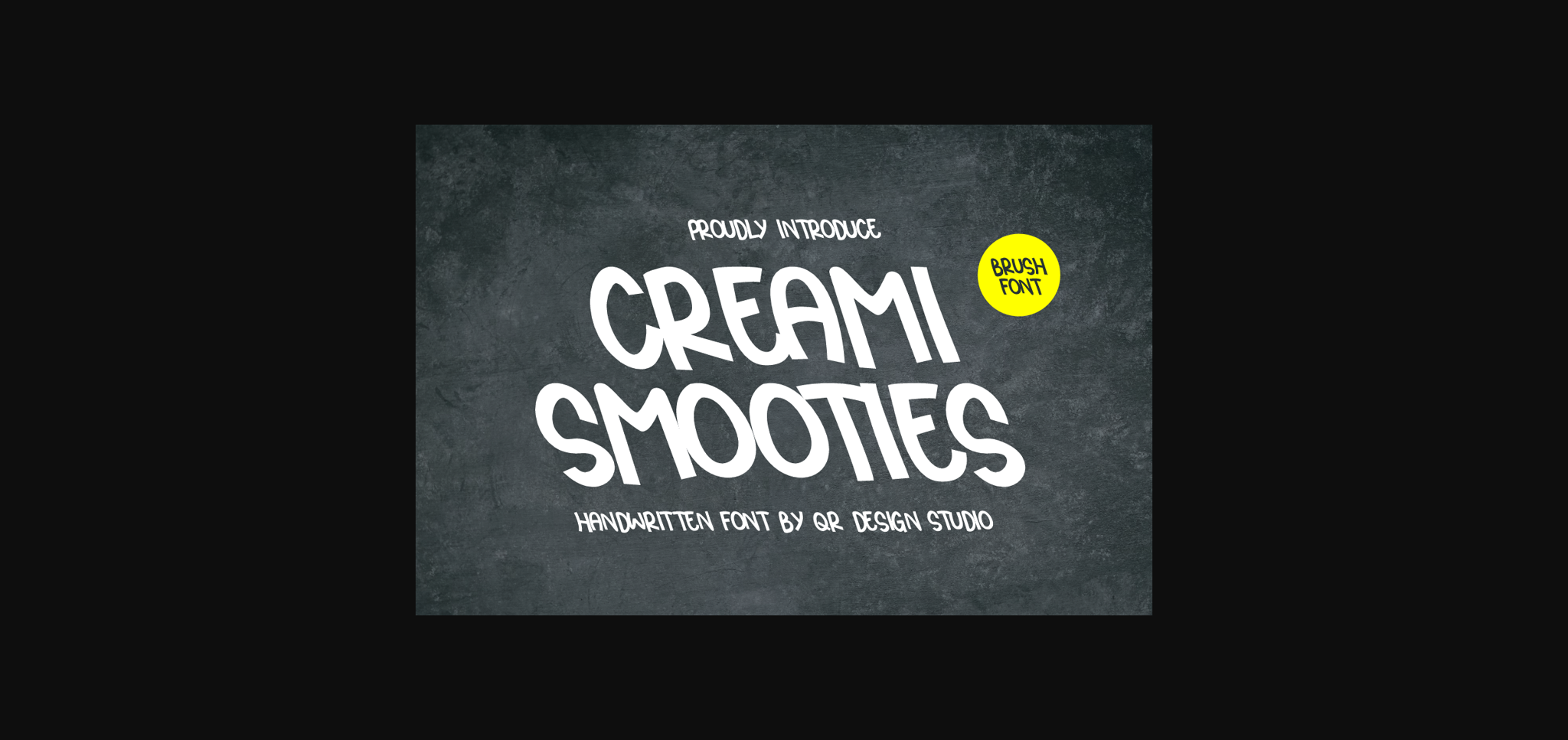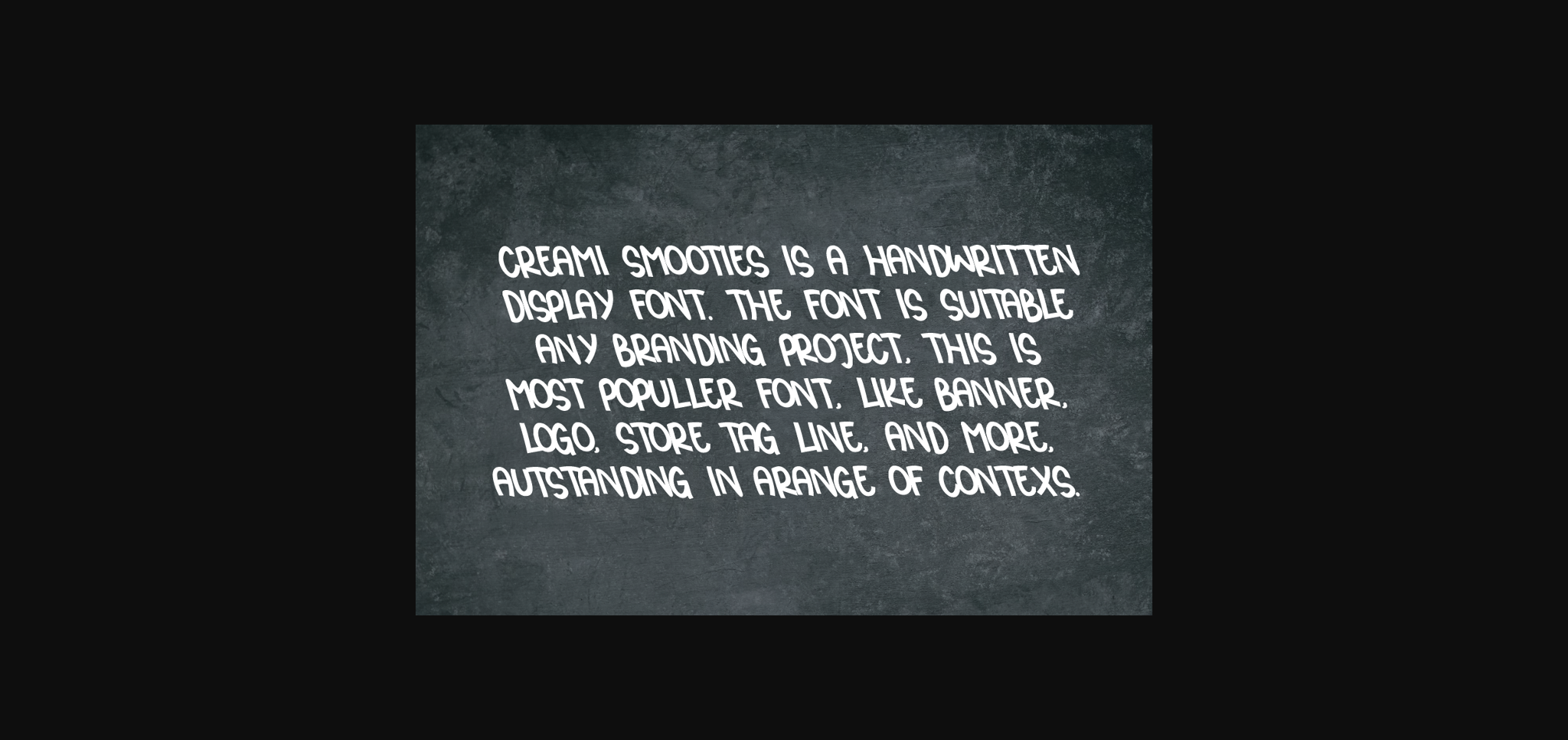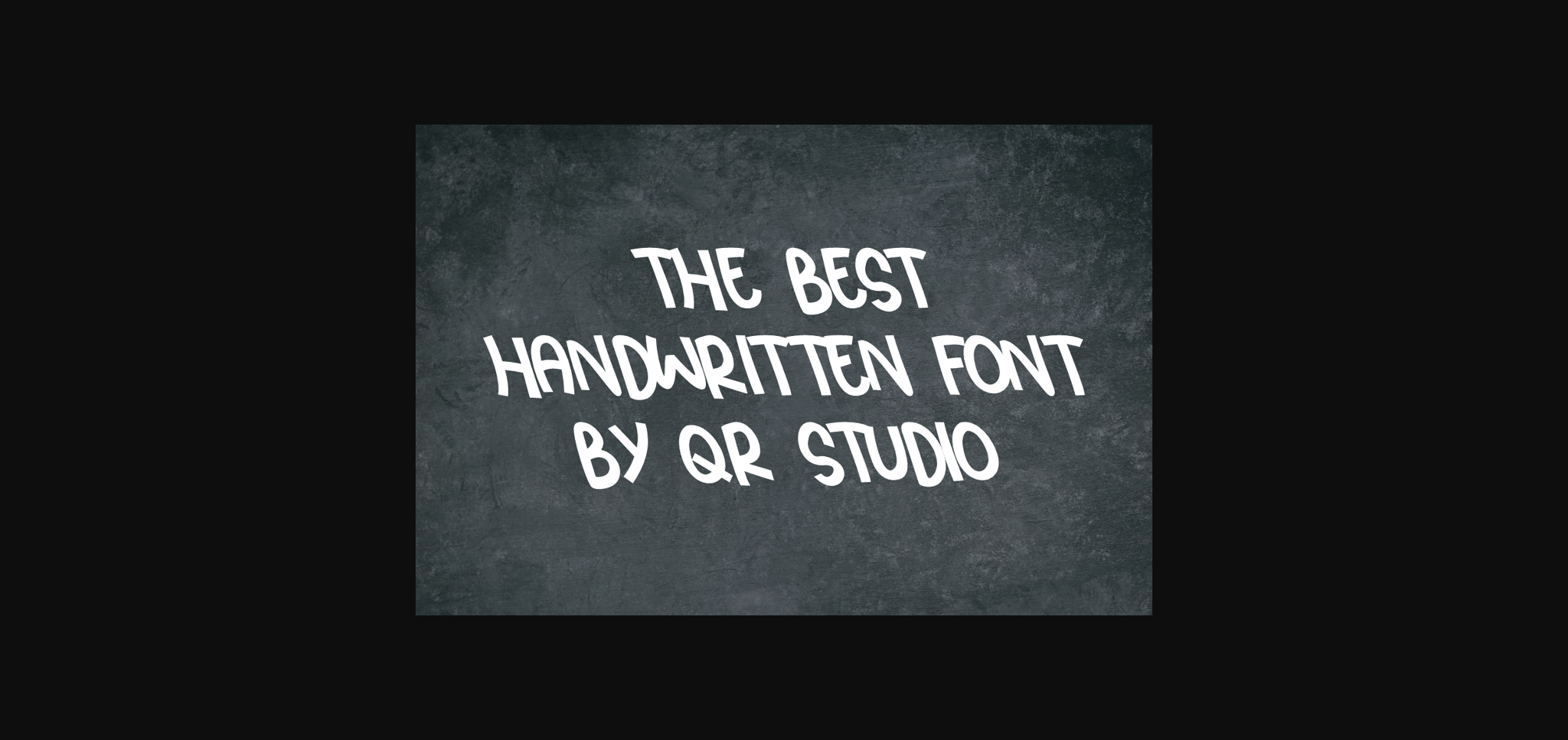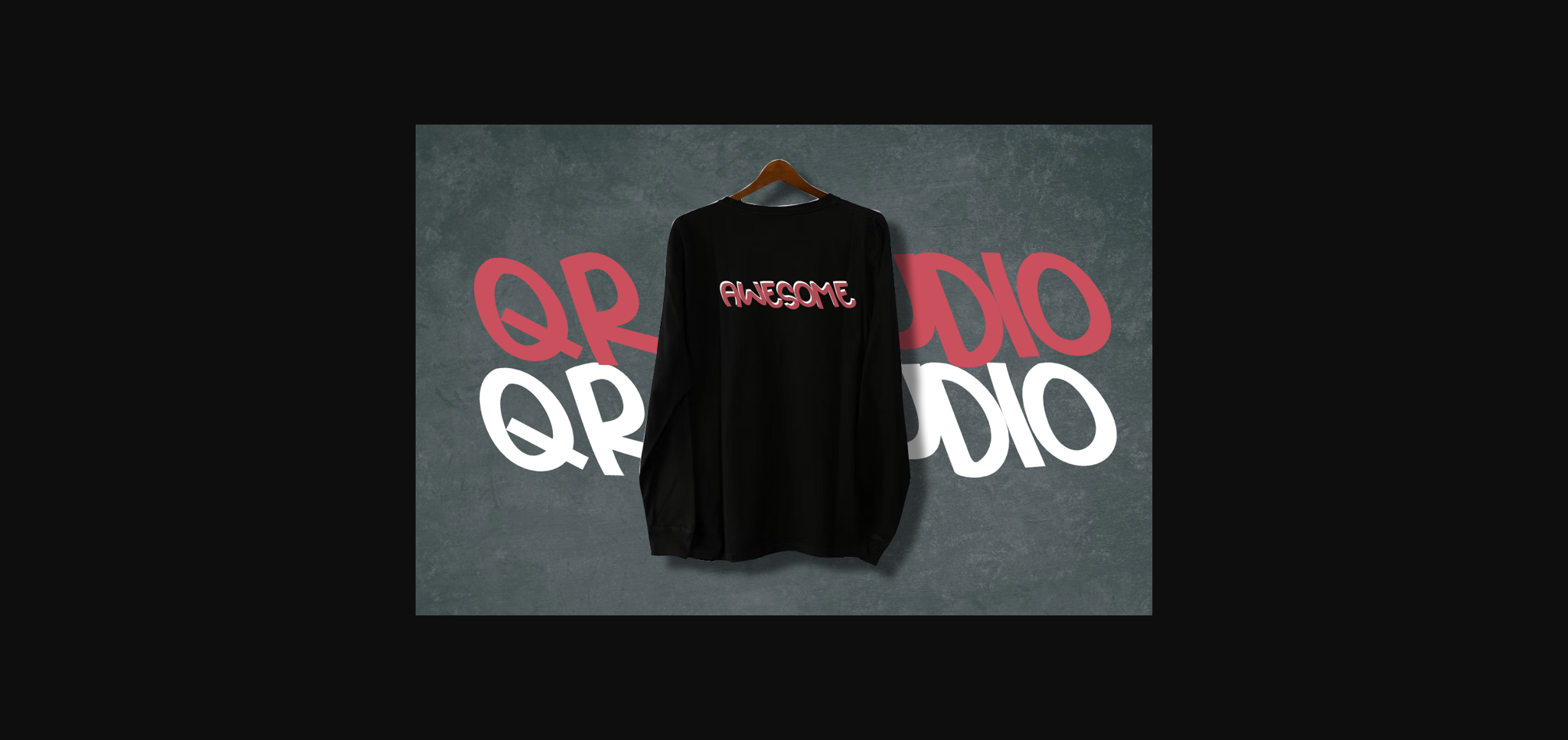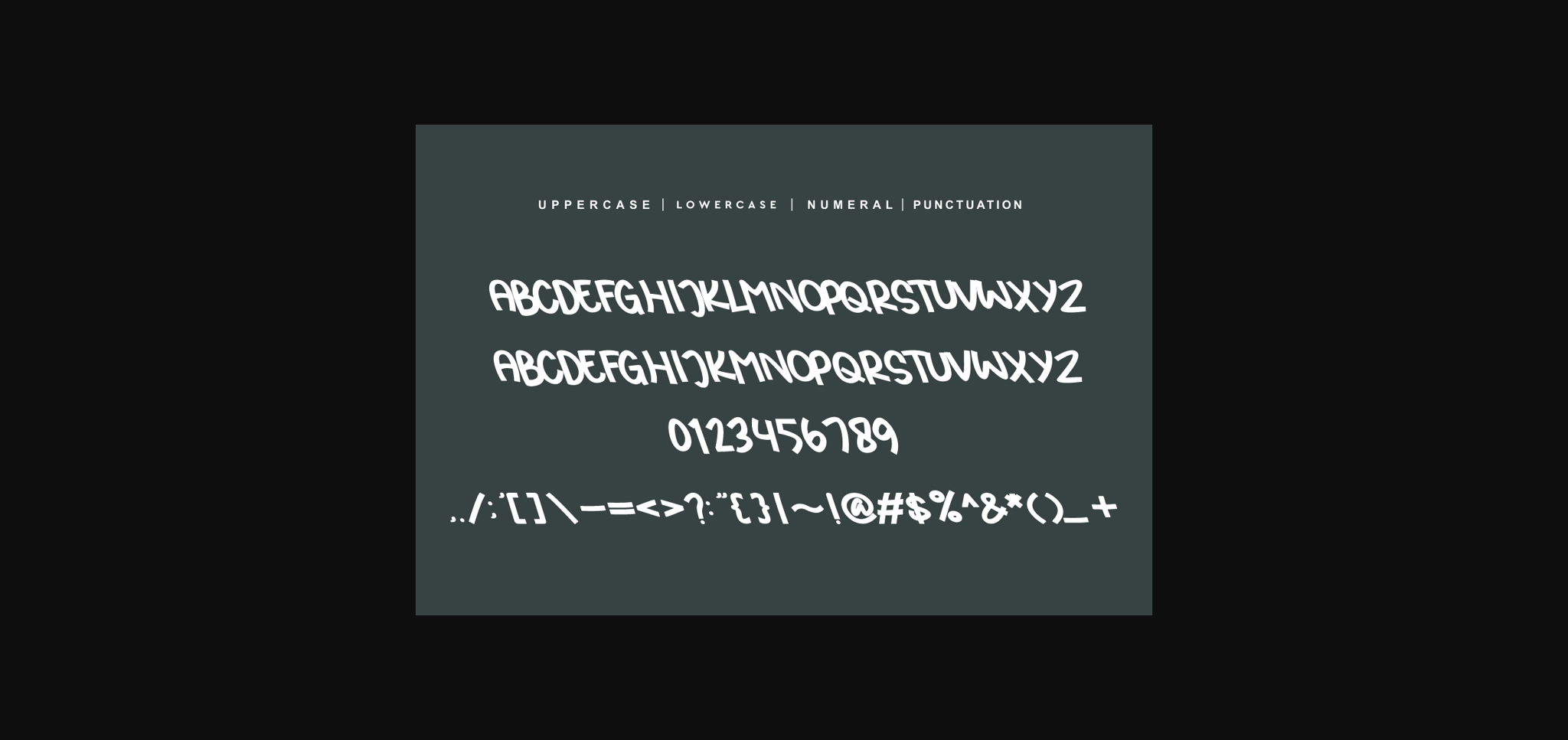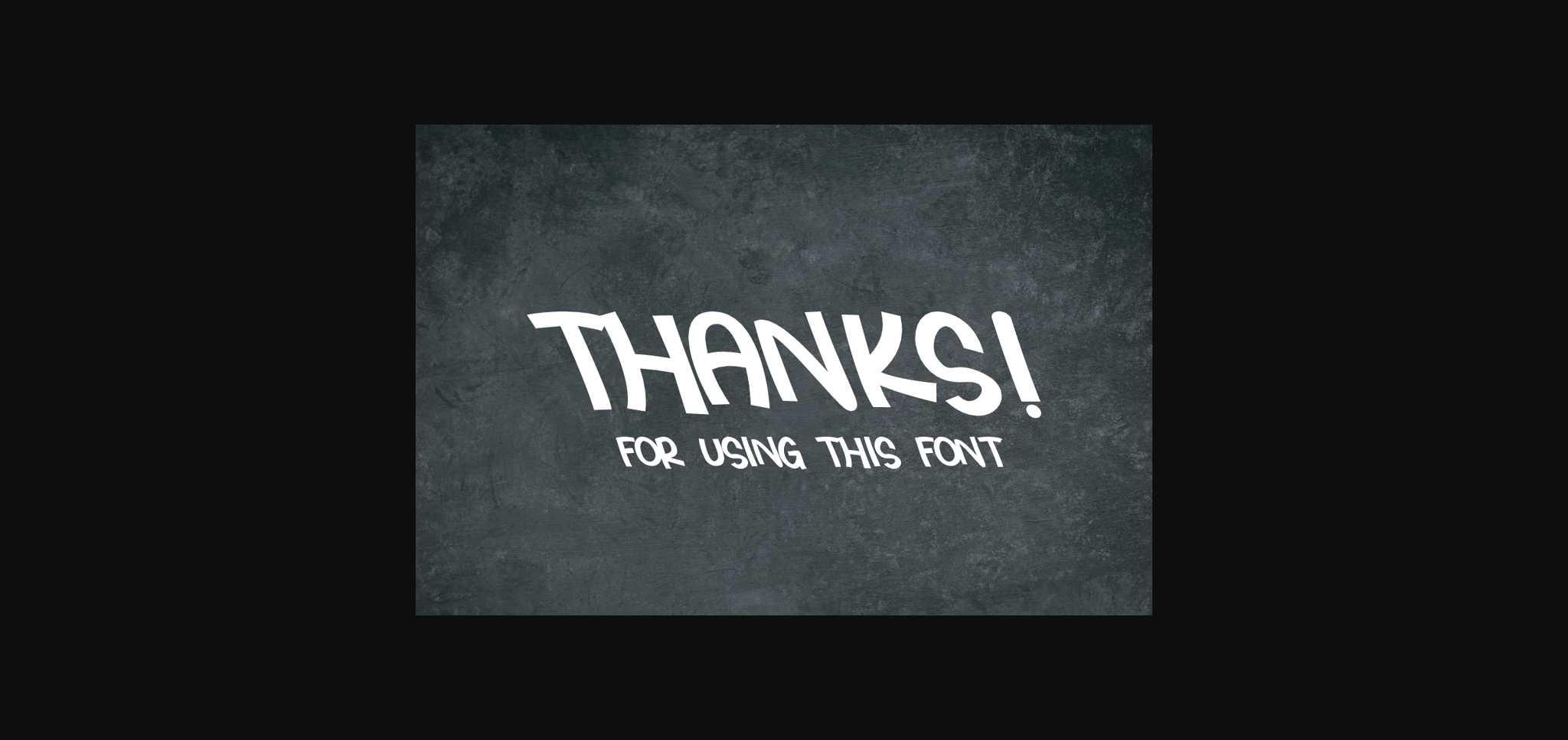
Creami Smooties Font
About Creami Smooties Font
Creami Smooties is a cute and friendly sans serif font. It has beautiful and well-balanced characters and as a result, it matches a wide pool of designs.